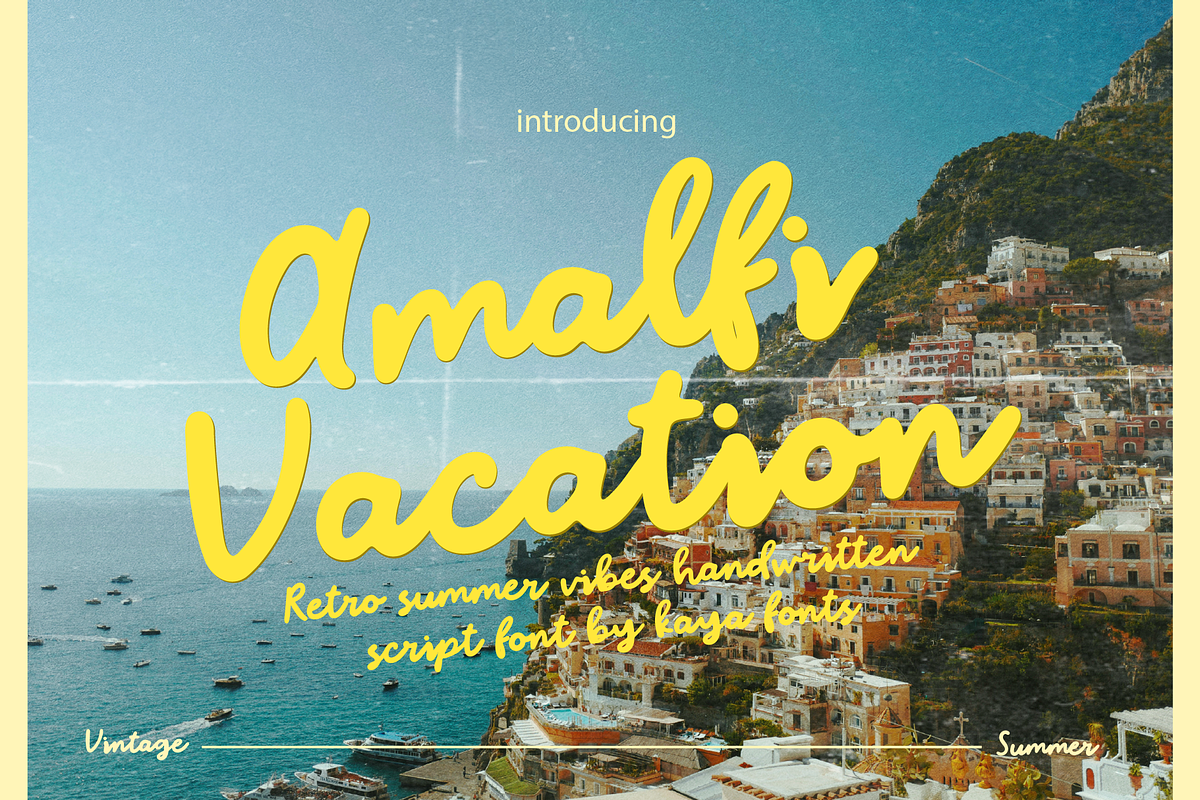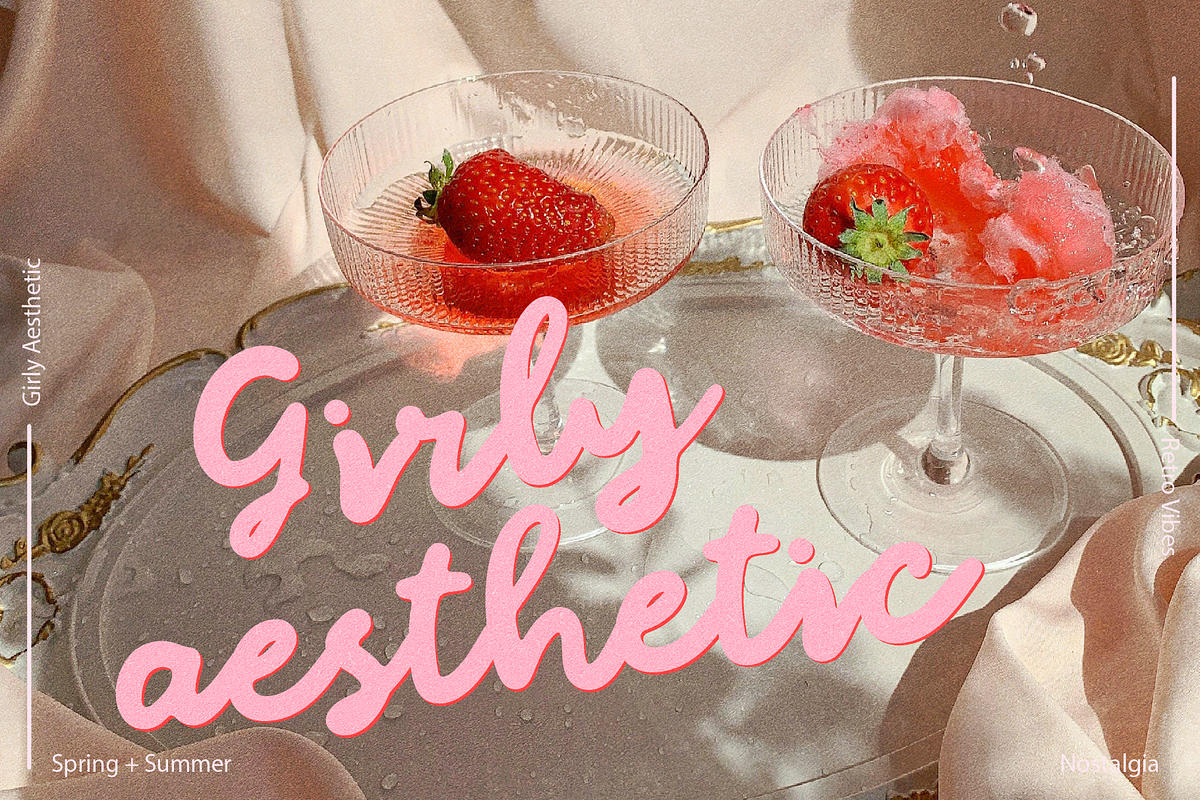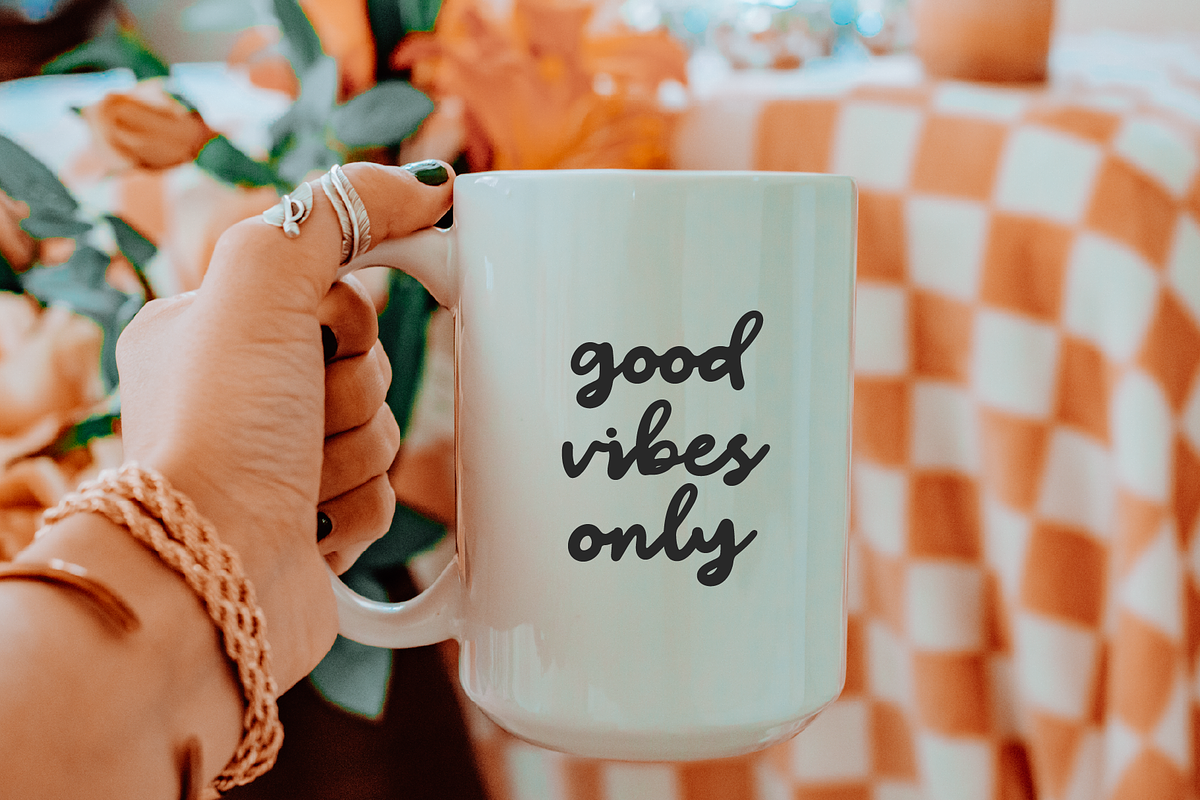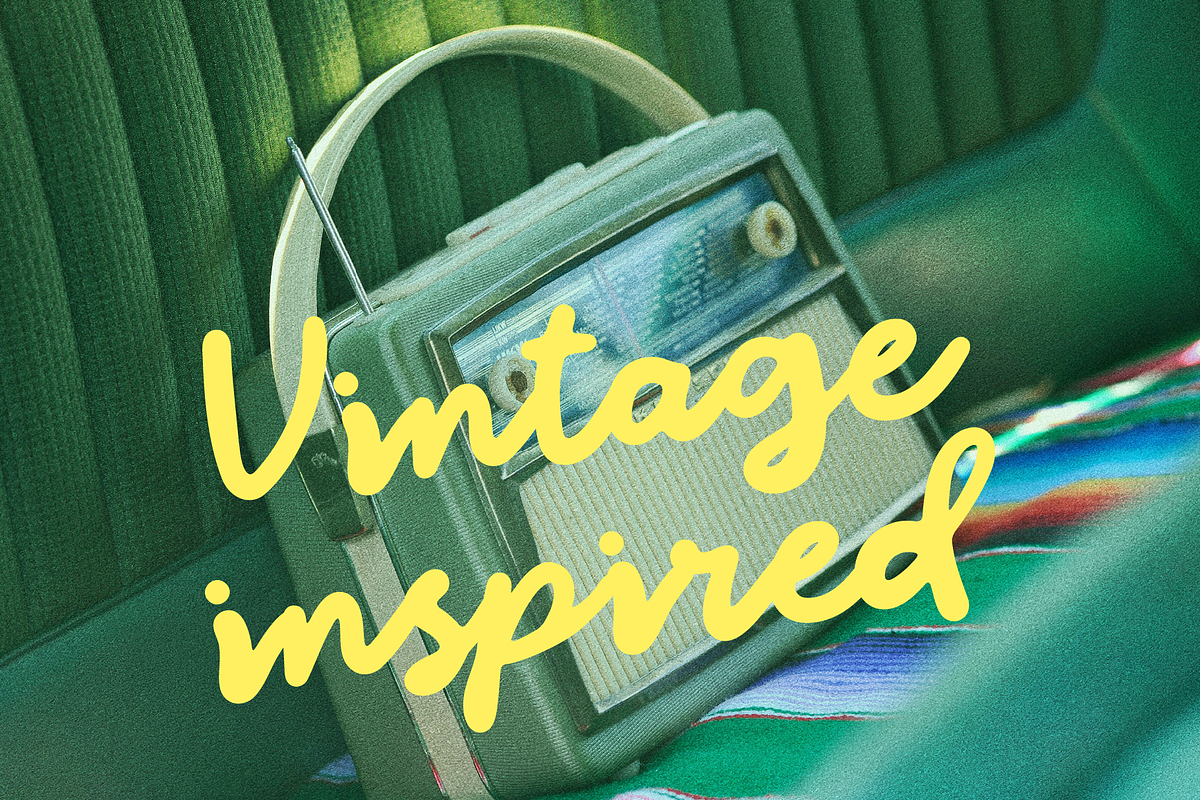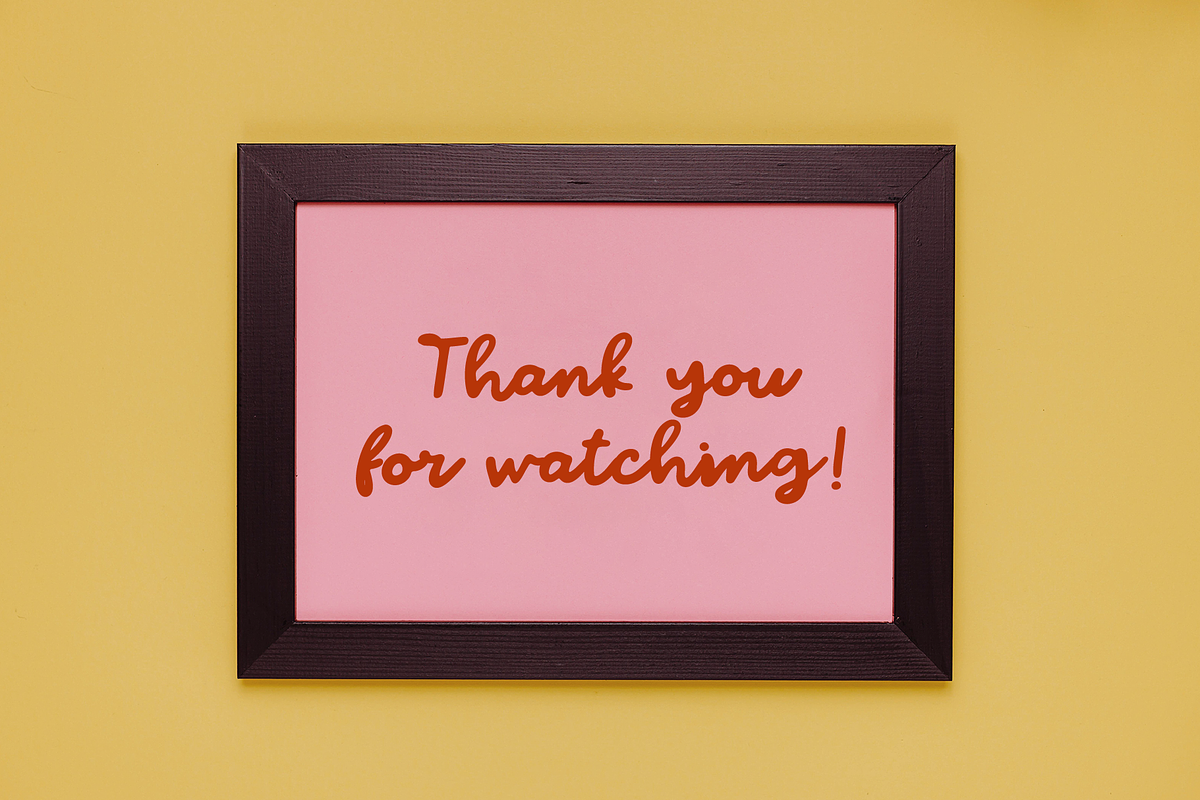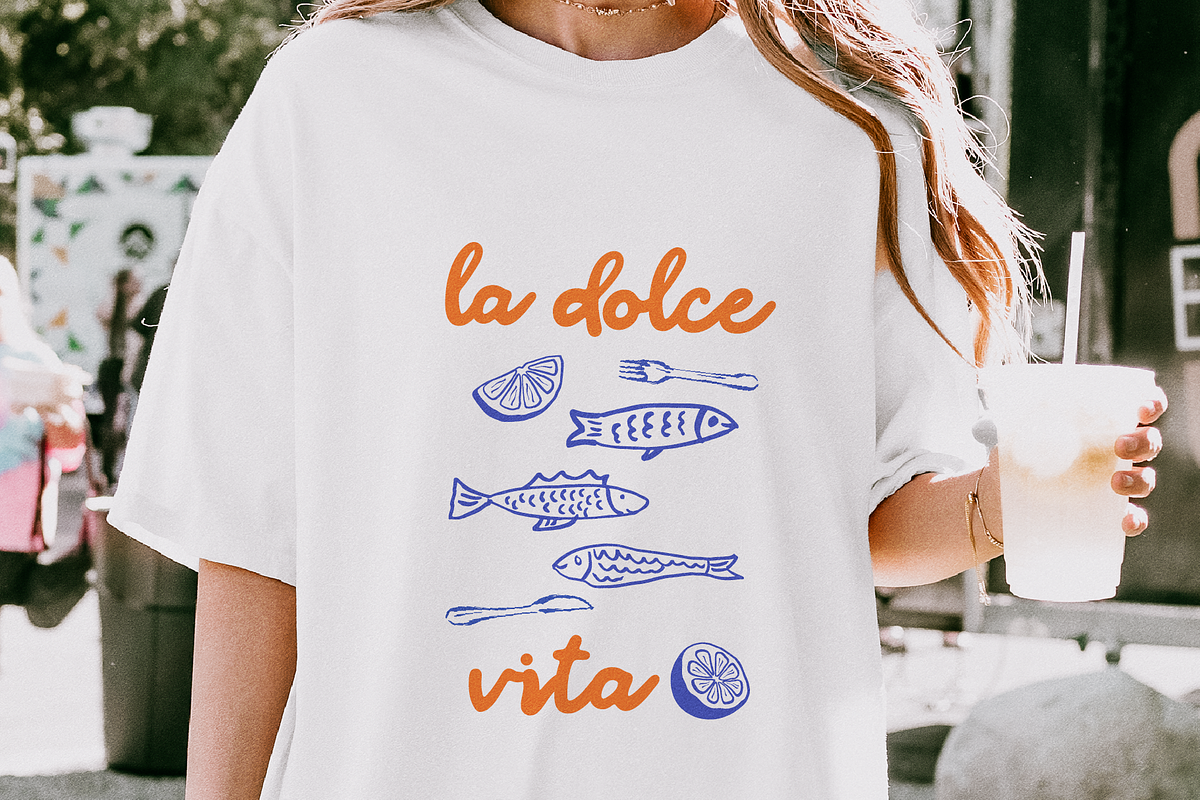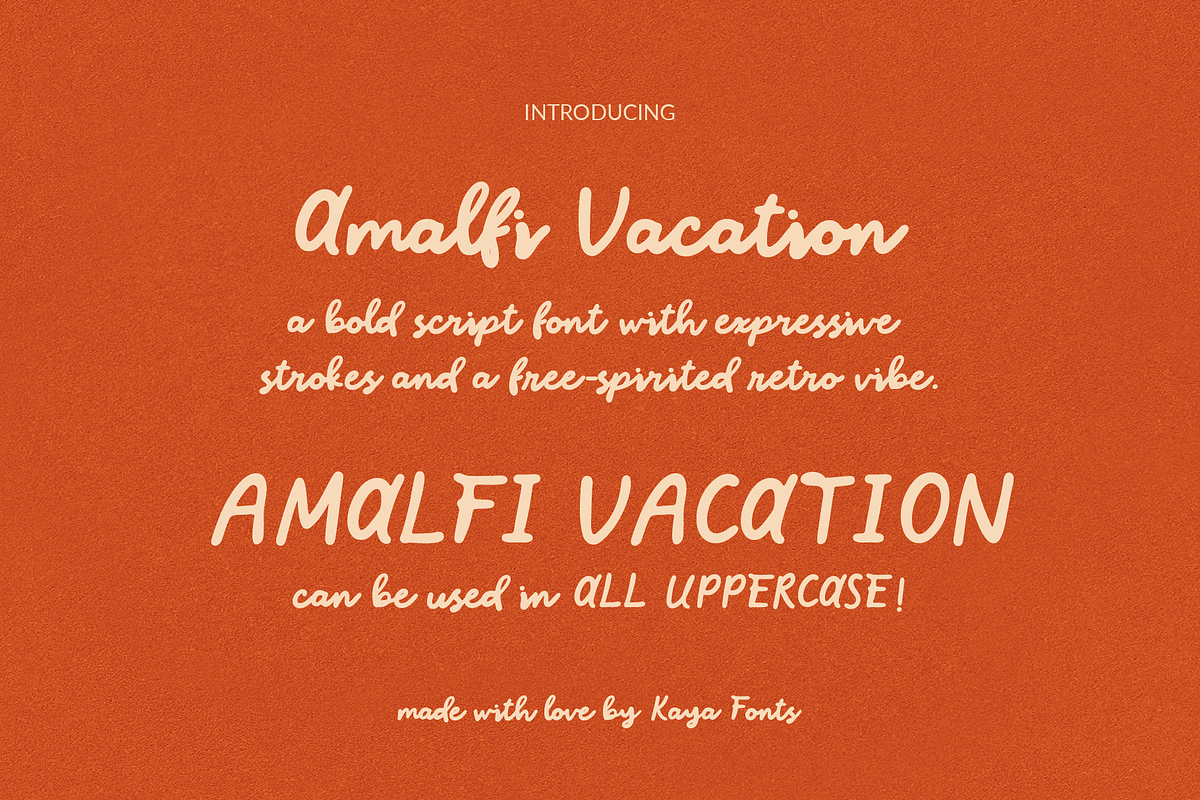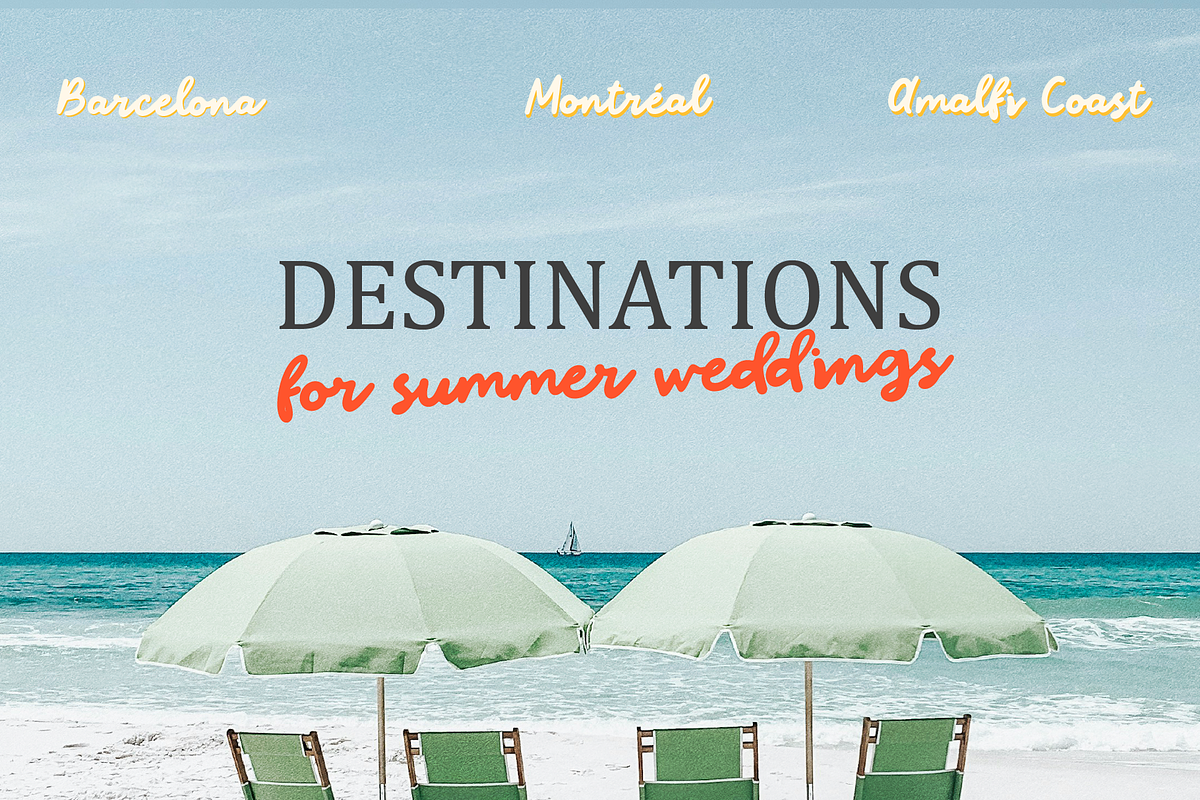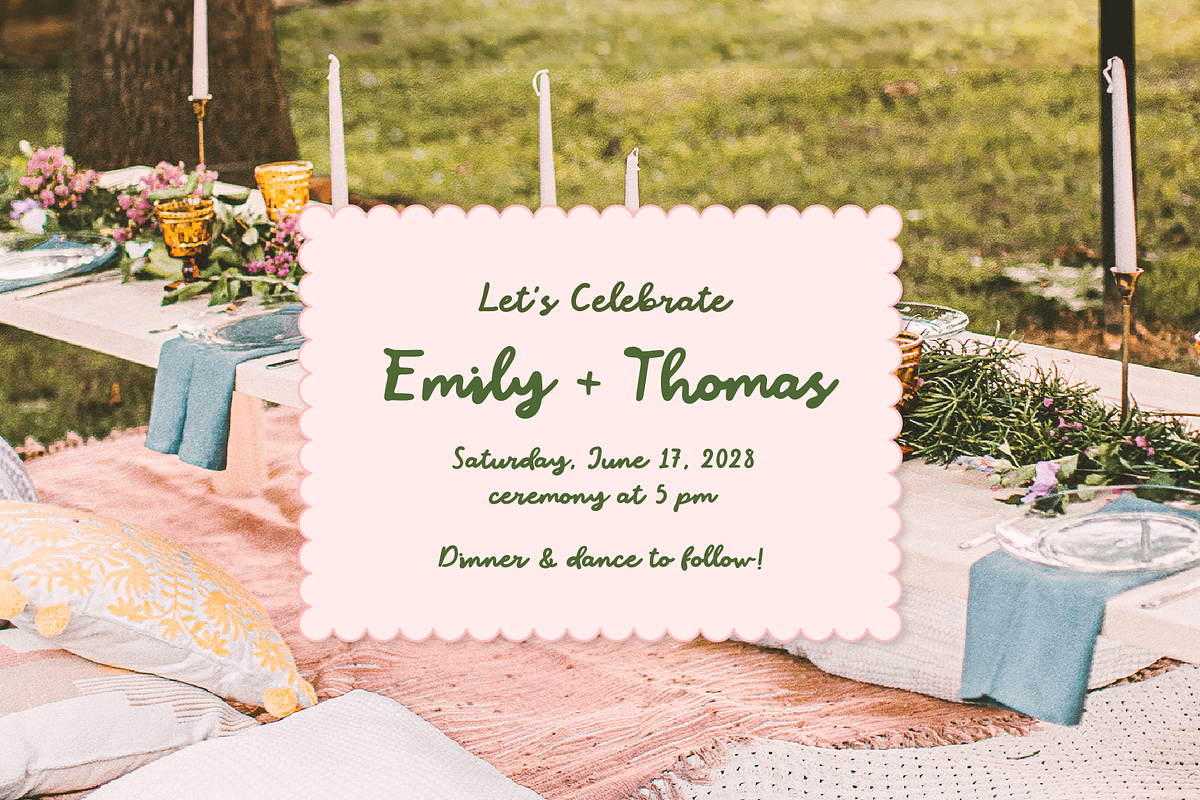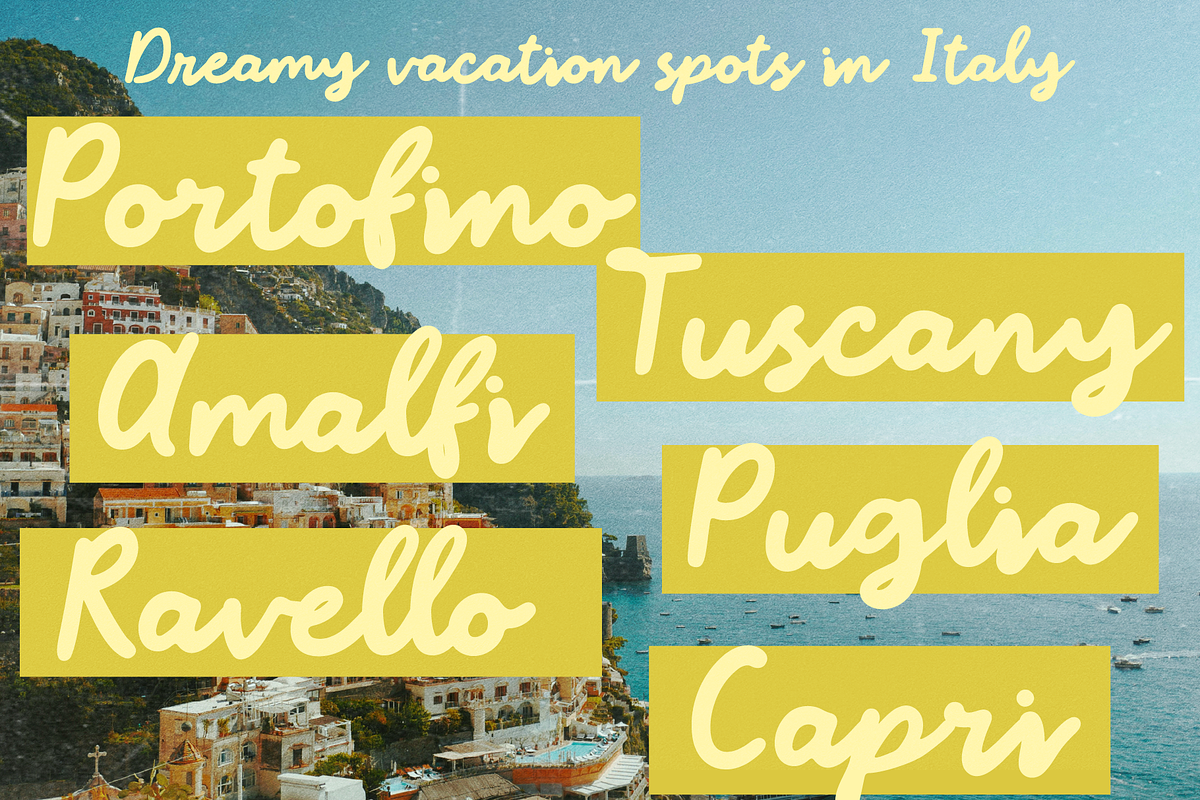
Amalfi - Coastal Summer Retro Script
Amalfi Vacation is a bold handwritten script inspired by the golden charm of Italian summers. With expressive strokes and a free-spirited retro vibe, this font brings sunshine and style to every design. From dreamy travel quotes to wedding invites, branding, or sunny merch graphics, every letter flows with warmth, personality, and vintage flair.
Whether you're channeling la dolce vita, designing for a beachside café, or crafting the perfect “ciao bella” moment, Amalfi Vacation adds the perfect handwritten touch with bold curves and breezy attitude.
• Summer branding & packaging
• Wedding invitations & stationery
• Travel blogs, quotes & postcards
• Retro T-shirts, stickers & merch
• Café menus, signs, logos, and more!